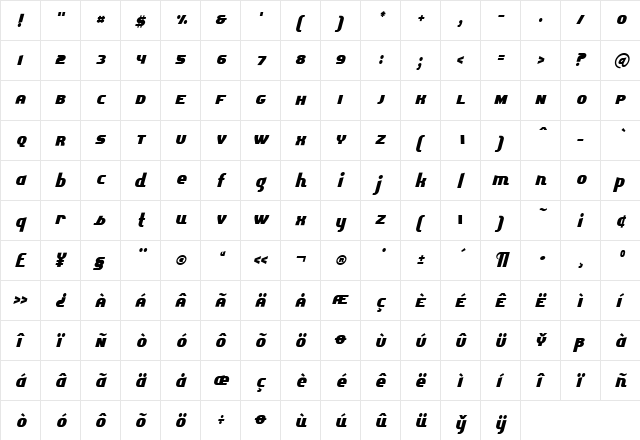
Quadricula Italic
Design Context for Quadricula Typeface
Quadricula takes a measured approach to typography — its balanced proportions and neutral character make it a reliable workhorse for both digital and print work. The dynamic lean of this cut emphasises speed and emphasis in any layout.
Pro Tip: Use Quadricula for emphasis, pull quotes, and subheadings where its slanted energy can add rhythm to the layout.